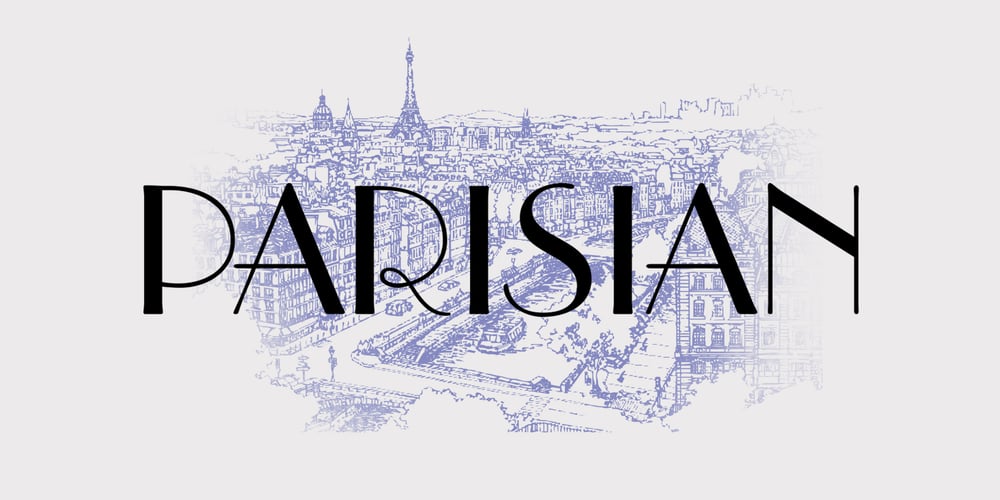
Parisian
Parisian font
Parisian Font Family was designed by Morris Fuller Benton and published by Bitstream. Parisian contains 1 styles and family package options. In 1928, the application of pure geometric form to sanserifs and slabserifs was in full swing. Morris Fuller Benton applied geometry to the Modern letterform to arrive at Parisian and Broadway for ATF.